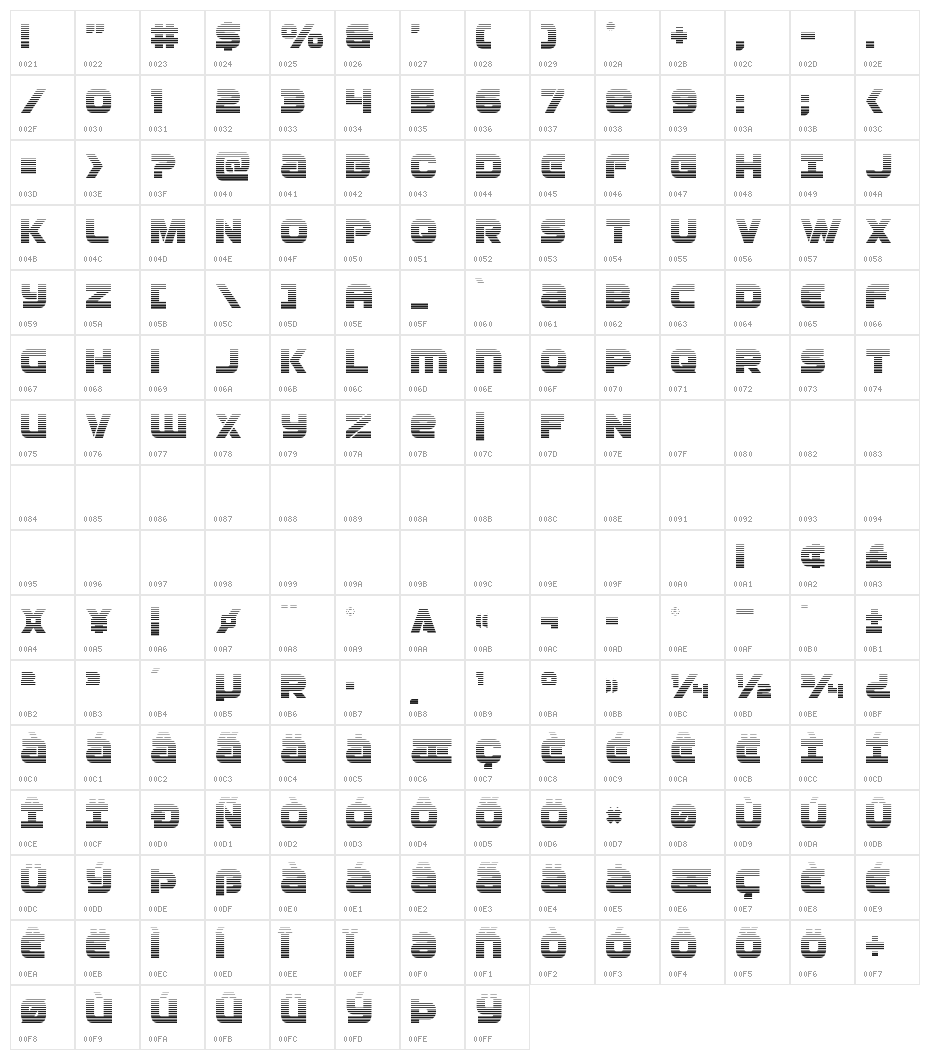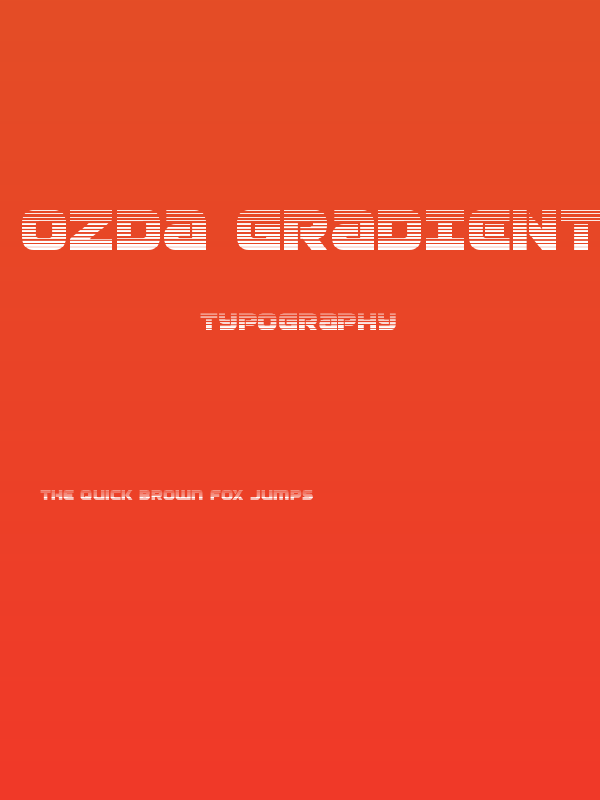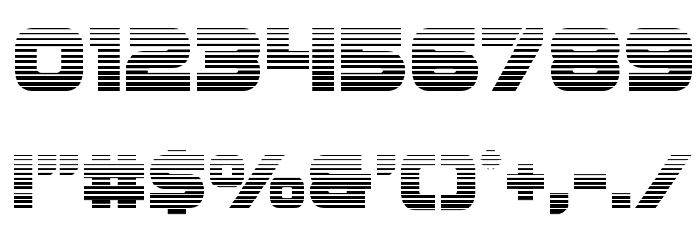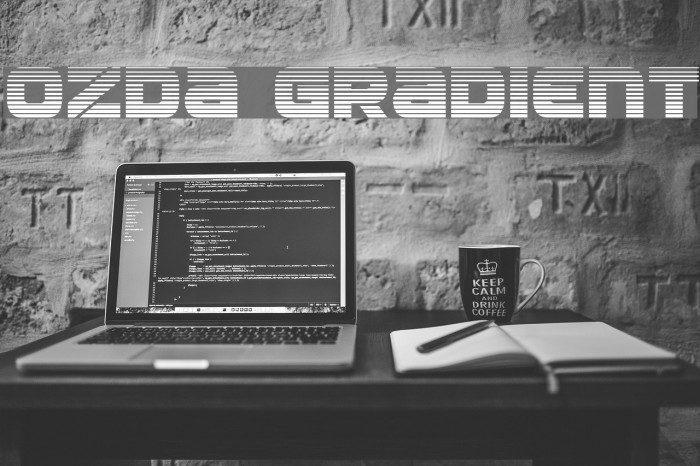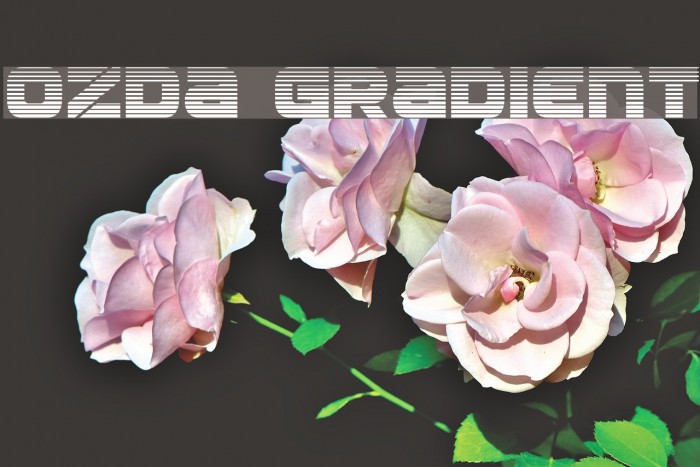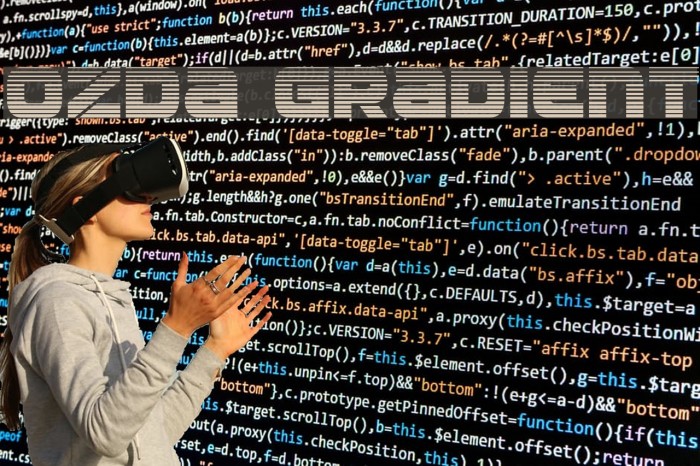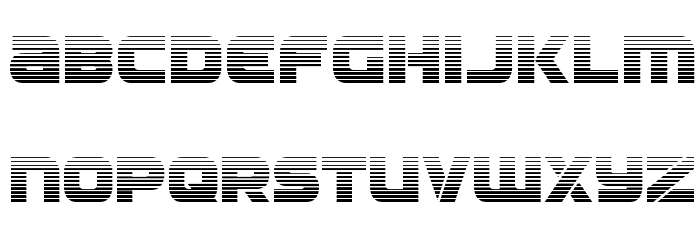
Ozda Gradient Font
Ozda Gradient Description
This font features a unique gradient effect created by horizontal lines that form each character, giving it a futuristic and dynamic appearance. The uppercase and lowercase letters, along with numbers and special characters, maintain a consistent style with bold, geometric shapes. The horizontal lines vary in thickness, creating an illusion of depth and movement. This design is eye-catching and modern, making it suitable for projects that require a strong visual impact. The font's structure is clean and precise, with each character distinctly separated by the lines, enhancing readability despite its decorative nature.
| Proposed Projects | Ideal for branding, posters, album covers, and digital media that require a modern, striking appearance. |